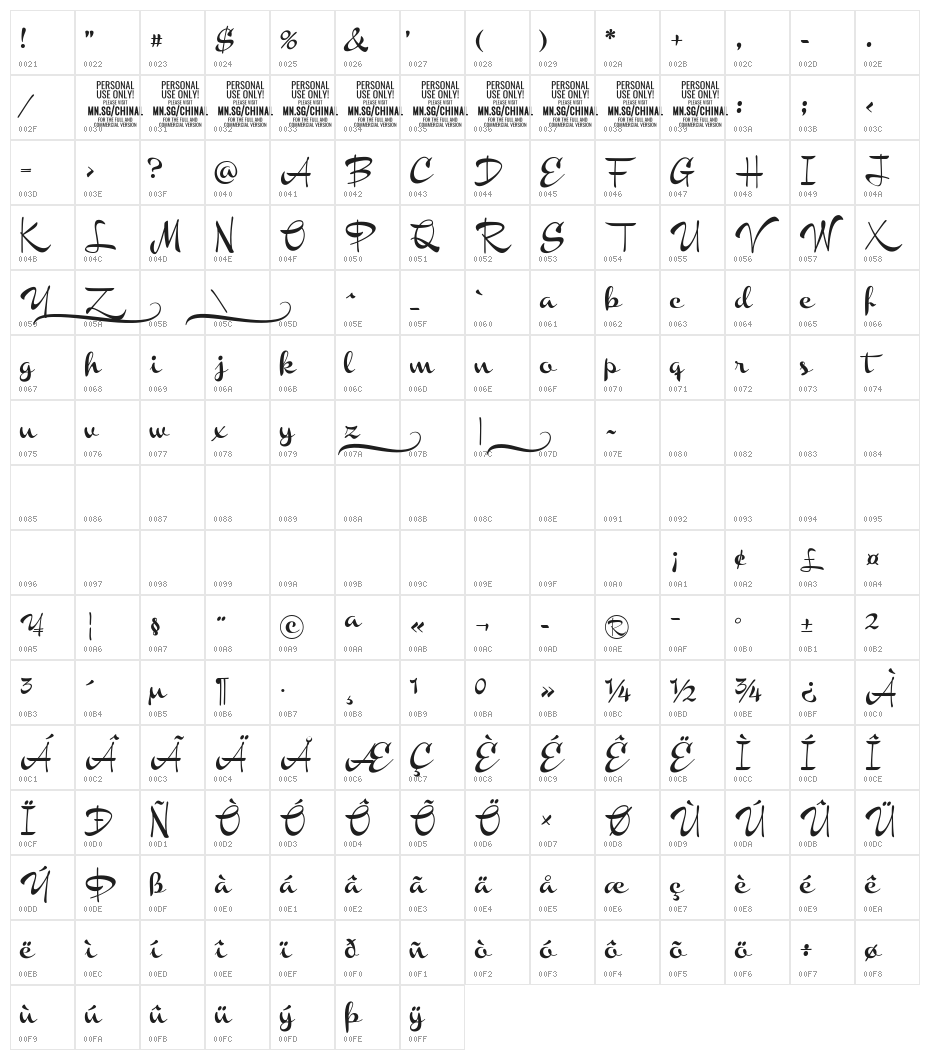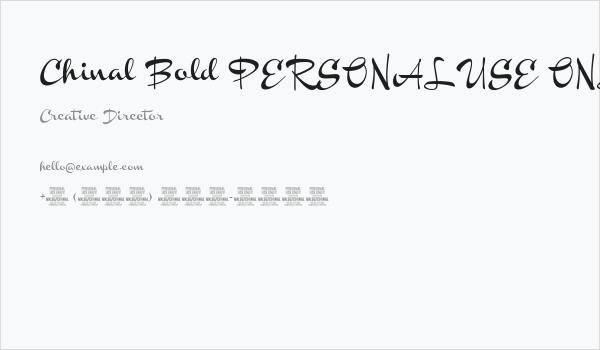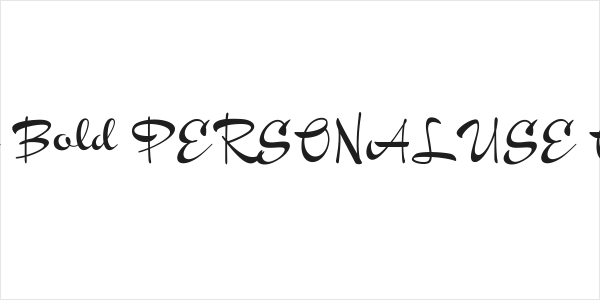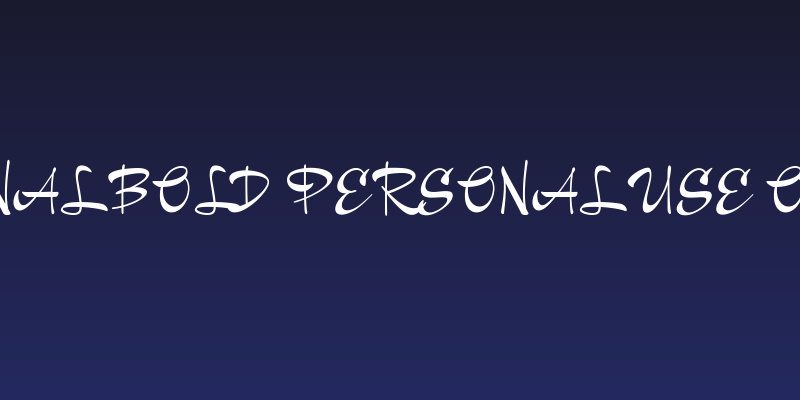
Chinal Bold PERSONAL USE ONLY Font
Chinal Bold PERSONAL USE ONLY Description
This font exhibits a bold, flowing script style with a modern flair. The uppercase letters are characterized by elegant curves and loops, giving them a dynamic and expressive appearance. The lowercase letters maintain a consistent fluidity, enhancing readability while retaining a sense of artistic flair. The numerals and special characters are crafted with the same attention to detail, ensuring a cohesive look across all glyphs. The overall design is both stylish and versatile, making it suitable for a variety of creative applications.
| Proposed Projects | Ideal for branding, invitations, greeting cards, and decorative signage. |